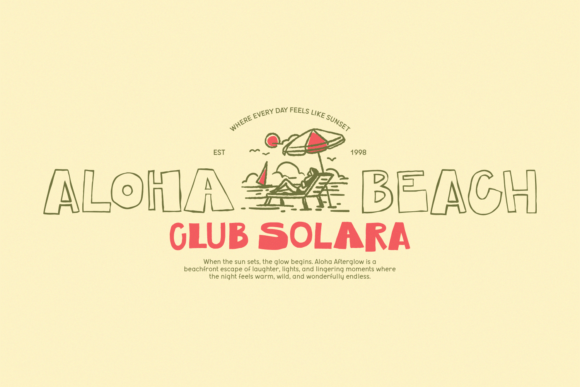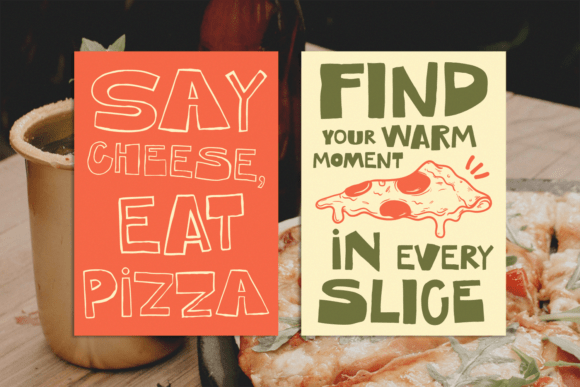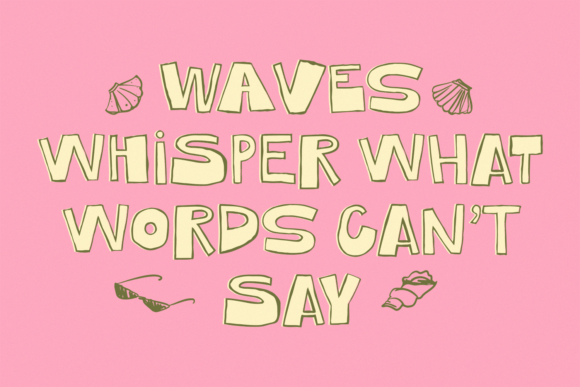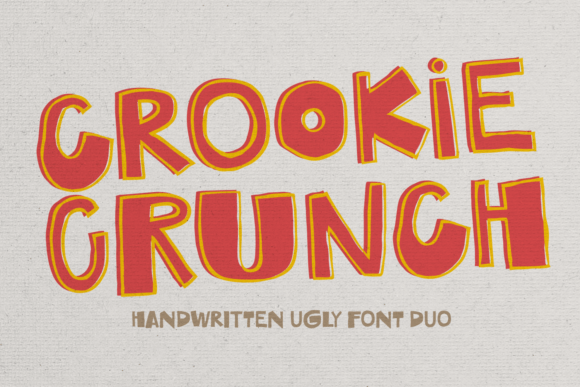
Introduction to Crookie Crunch Font
πŸͺ Crookie Crunch: Bold & Quirky Handwritten Ugly Font Duo Meet Crookie Crunch , the bold and delightfully quirky Handwritten Ugly Font Duo that celebrates imperfect shapes, uneven strokes, and playfully chaotic character.
Designed in two fun stylesβ€” Regular and Inline β€”this duo gives your designs a loud, messy, and wonderfully expressive handmade look It champions a unique aesthetic where flaws are features, resulting in a typeface that is impossible to ignore.
Key Features of Crookie Crunch Font
Why Choose Crookie Crunch Font?
Crookie Crunch Font offers exceptional quality and versatility, making it a valuable addition to your design toolkit. Whether you’re creating for personal projects or commercial use, Crookie Crunch Font delivers professional results.